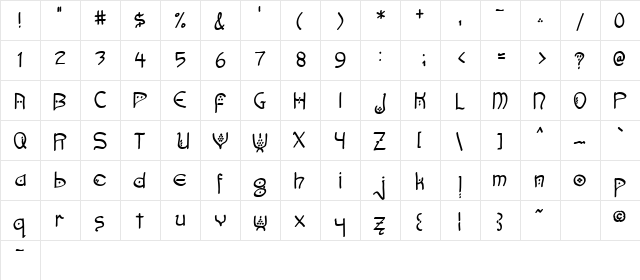
Faerie Moot Ornate Regular
Design Context for Faerie Moot Ornate Typeface
Faerie Moot Ornate is a composed and adaptable typeface that performs quietly and consistently across a wide range of design contexts.